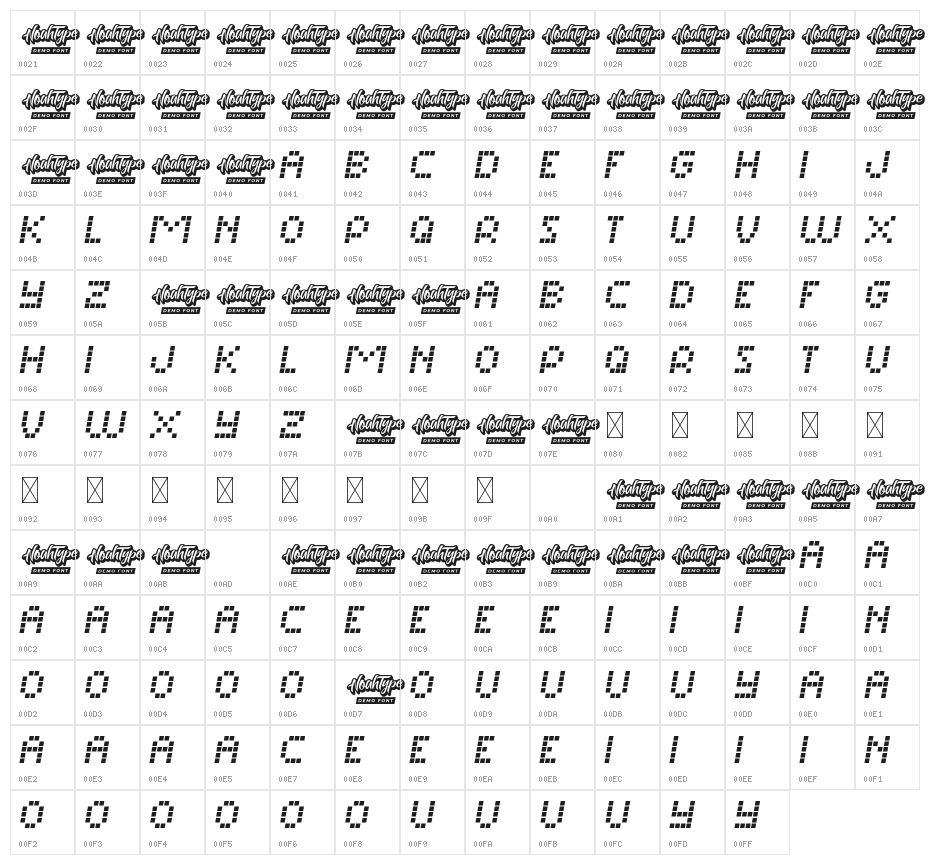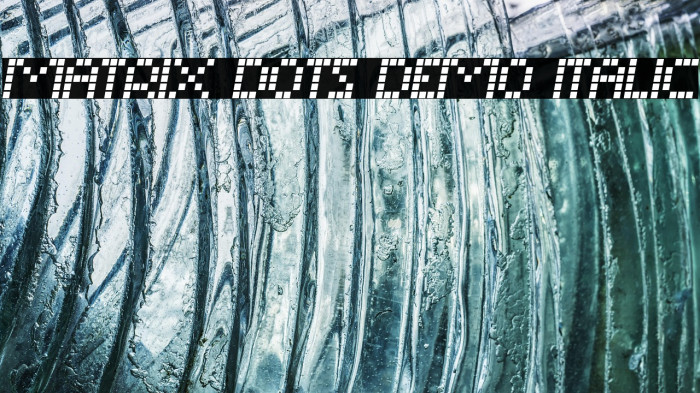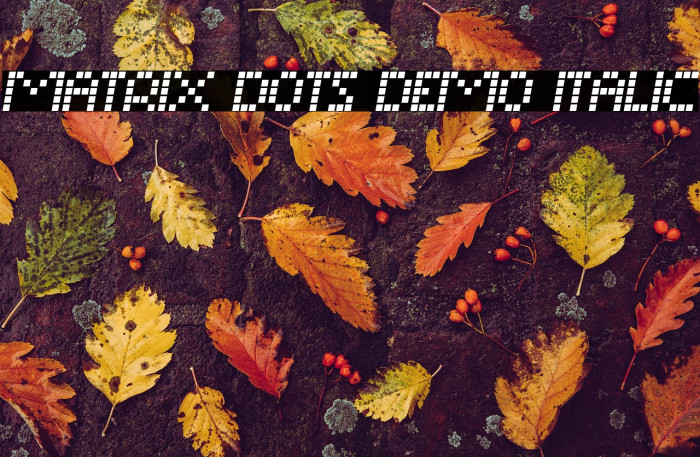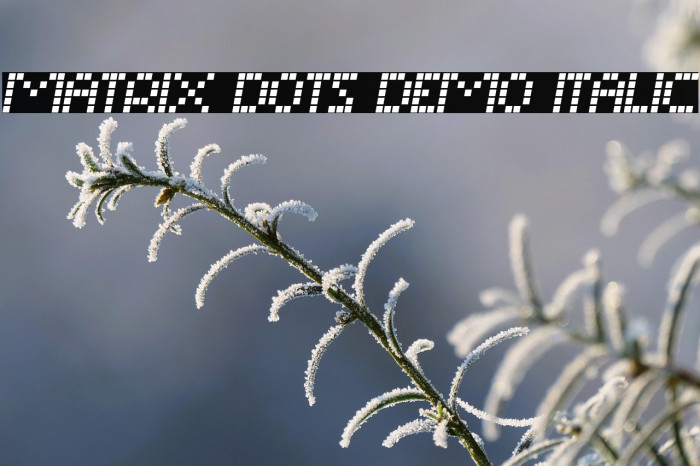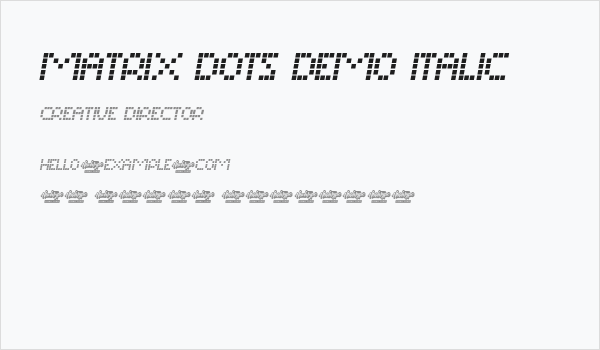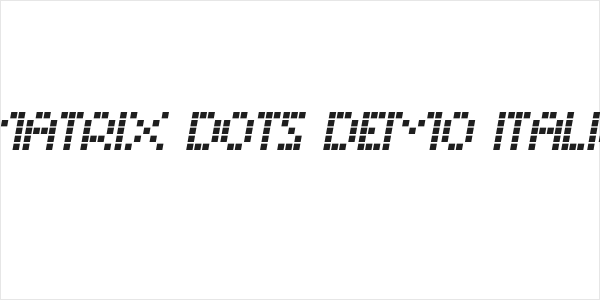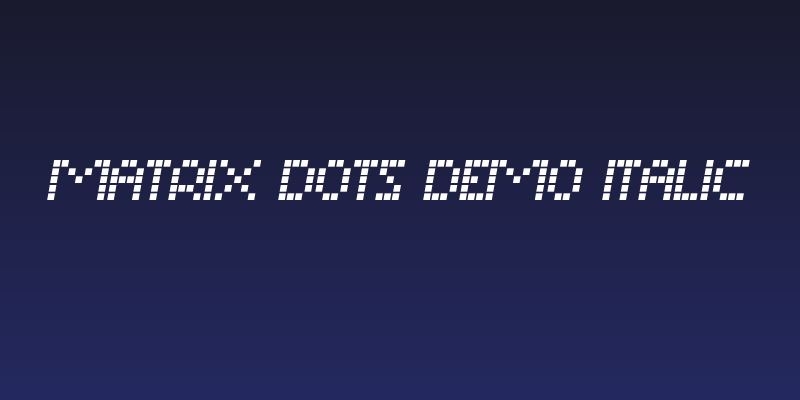
Matrix Dots Demo Italic Font
Matrix Dots Demo Italic Description
This font features a unique design composed of small, square dots arranged to form each character. The style is reminiscent of digital displays or LED screens, giving it a modern and technological feel. The characters are italicized, adding a dynamic and forward-leaning appearance. The font maintains a consistent structure across both uppercase and lowercase letters, as well as numbers and special characters. Its pixelated form makes it ideal for projects that require a futuristic or digital aesthetic.
| Use Case | Logos, Headlines, Digital displays |
| Proposed Projects | Ideal for digital-themed projects, tech branding, video game graphics, and futuristic designs. |